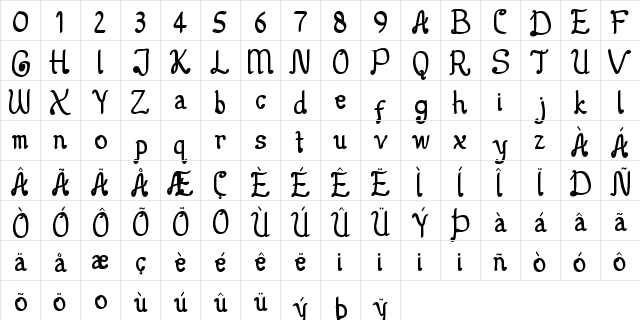
Zhonfragile Regular Font Preview
Zhonfragile Regular
Design Context for Zhonfragile Typeface
Zhonfragile is a composed and adaptable typeface that performs quietly and consistently across a wide range of design contexts.